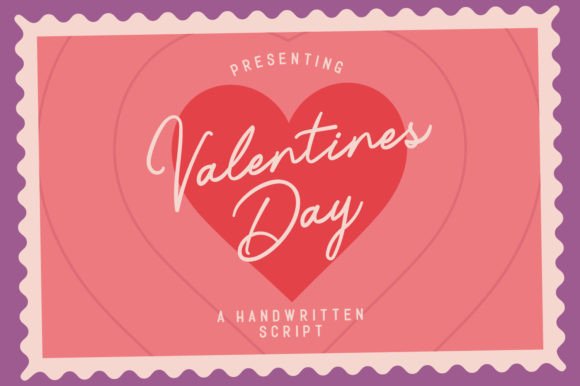
In a world where expressions of love transcend mere words, let the enchanting strokes of the Valentines Day font carry your heartfelt messages with unparalleled elegance. Inspired by the timeless allure of handwritten love letters, this exquisitely crafted script is more than just a font; it's an artistic testament to the enduring power of romance.
Immerse yourself in the intricate swirls and graceful curves of this font, each letter a testament to the beauty found in the written word. Its delicate strokes evoke a sense of nostalgia, whispering tales of love stories past, while its modern sensibility ensures it remains relevant and captivating in today's digital world.
With the Valentines Day font, your designs will exude an air of sophistication and charm, capturing the essence of love in its purest form. Whether you're creating heartfelt cards, timeless invitations, or eye-catching social media posts, this font will transform your creations into expressions of love that truly resonate.
With the Valentines Day font, you can:
- Design cards and invitations that capture the true essence of romance, leaving a lasting impression on your loved ones.
- Create stunning graphics for social media that will captivate your audience and spread the message of love far and wide.
- Elevate your sublimation projects with intricate designs that celebrate the spirit of Valentine's Day.
- Bring your creative vision to life with printable materials that showcase the beauty of handwritten love letters.
This Valentine's Day, embrace the power of the Valentines Day font and let your creations bloom with love, passion, and timeless elegance.